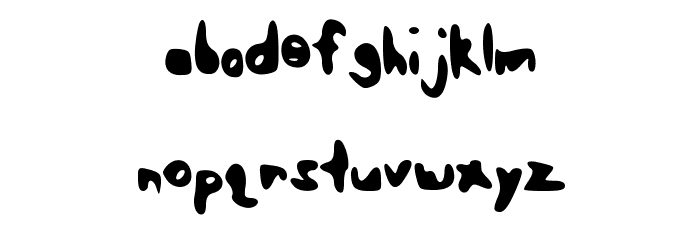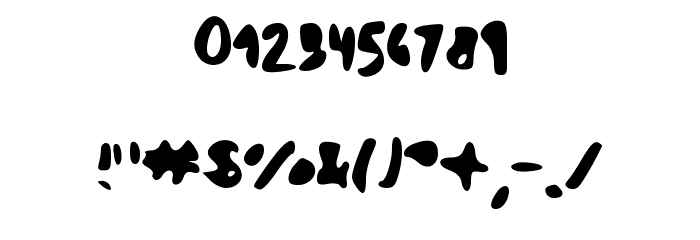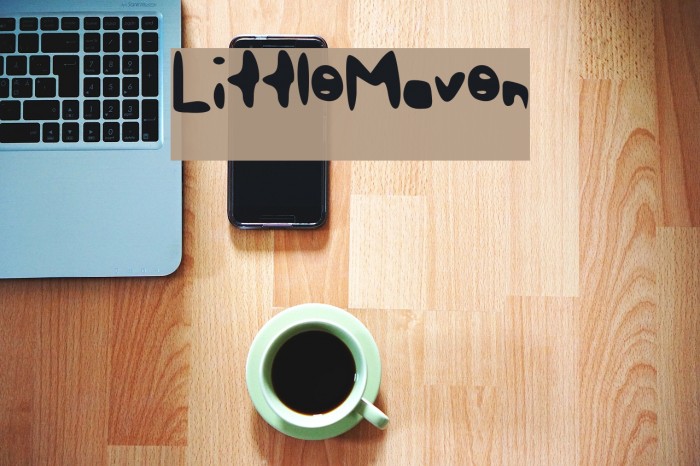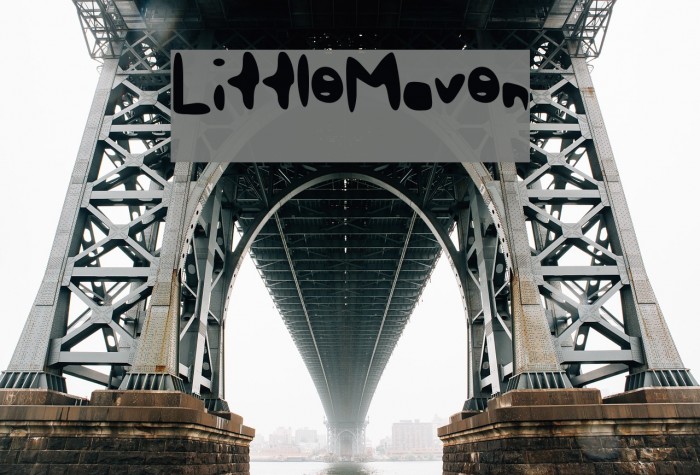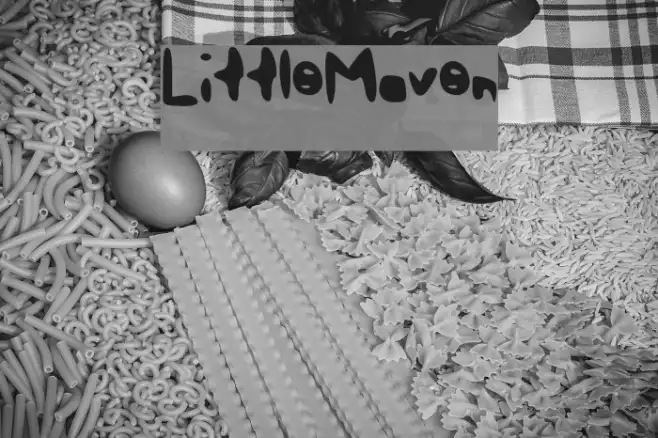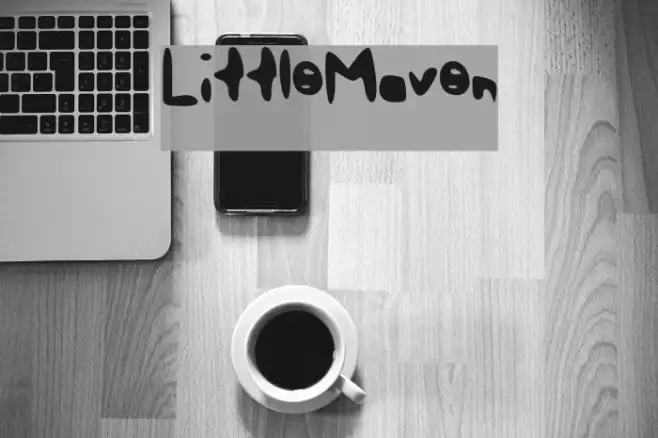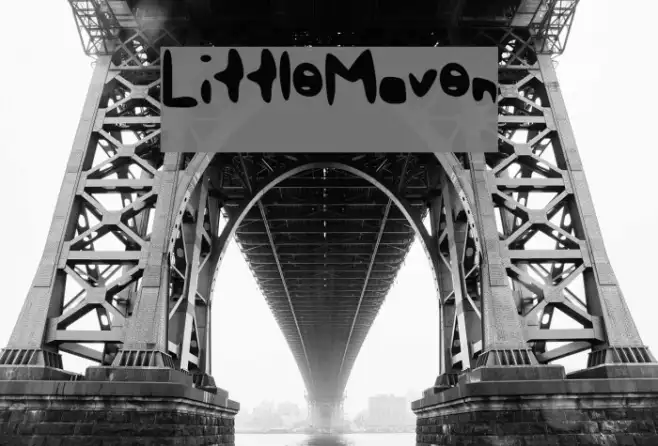
LittleMaven Font
This playful and whimsical font features a hand-drawn style with irregular, organic shapes that give it a lively and dynamic appearance. The letters are bold and rounded, with a slightly uneven baseline that adds to its casual charm. The uppercase and lowercase characters maintain a consistent style, while the numbers and special characters complement the overall aesthetic. This font exudes a sense of fun and creativity, making it ideal for projects that aim to convey a lighthearted and approachable tone.
A playful, hand-drawn font with bold, rounded characters and a whimsical style.
- Proposed Projects: Ideal for children's books, playful branding, greeting cards, and creative posters.
- Overall Style: Playful, Whimsical